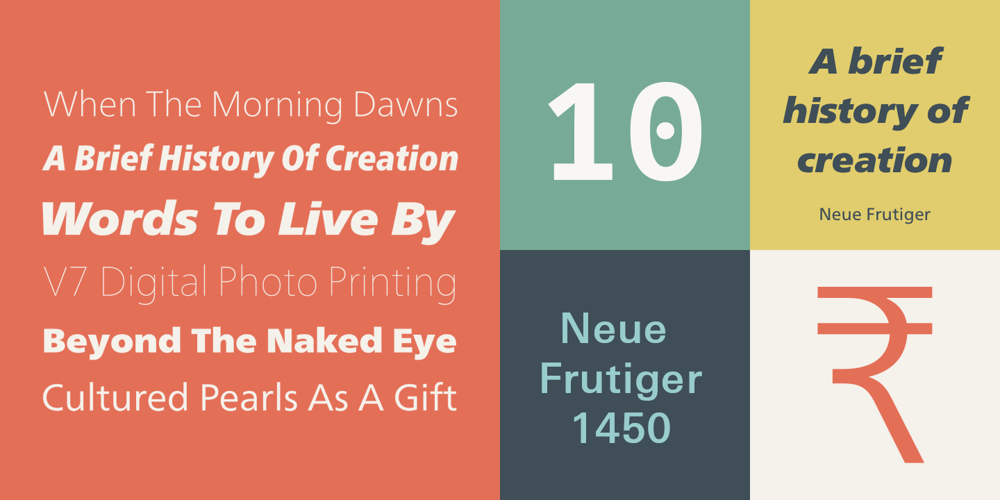
Neue Frutiger 1450 Font Family was designed by Adrian Frutiger, Akira Kobayashi and published by Linotype. Neue Frutiger 1450 contains 8 styles and family package options. During planning for the new Roissy Charles de Gaulle airport in Paris at the beginning of the 1970s, it was determined that the airport’s signage system had to include the clearest and most legible lettering possible. The development of all signage was put into the hands of Adrian Frutiger and his studio. The team carried out their task so effectively that a huge demand for their typeface soon arose from customers who wanted to employ it in other signage systems, and in printed materials as well. The Frutiger® typeface not only established new standards for signage, but also for a range of other areas in which a clear and legible design would be required, especially for small point sizes and bread-and-butter type. The typeface family that which emerged as a result of this demand was added into the Linotype library as “Frutiger” in 1977. Frutiger Next, created in 1999, is a further development of Frutiger, not necessarily a rethinking of the design itself. It was based on a new concept, the most obvious visual characteristics of which is the larger x-height, as well as a more pronounced ascender height and descender depth for lower case letters in relation to capitals. This new design created a balanced image and included considerably narrower letterspacing. Frutiger Next meets the demand for a space-saving, modern humanist sans. 2009’s Neue Frutiger is a rethink of the 1977 Frutiger family, now revised and improved by Akira Kobayashi in close collaboration with Adrian Frutiger. Despite the various changes, this “New Frutiger” still fits perfectly with the original Frutiger family, and serves to harmoniously enhance the weights and styles already in existence. The perfect mix, guaranteed Neue Frutiger has the same character height as Frutiger. As a result of this, already existing Frutiger styles can be mixed with Neue Frutiger where necessary. Likewise, Neue Frutiger is perfect for use alongside Frutiger Serif. Newly added are the “Neue Frutiger 1450″ weights. Especially for the requirements of the newly released German DIN 1450 norm we have built together with Adrian Frutiger specific weights of the Neue Frutiger. The lowercase l” is curved at the baseline to better differentiate between the cap “I”, additionally the number “0” has a dot inside to better differentiate between the cap “O”, and the number “1” is now a serifed 1. The font contains additionally the origin letterforms from the regular Neue Frutiger font which can be accessed through an Opentype feature.”